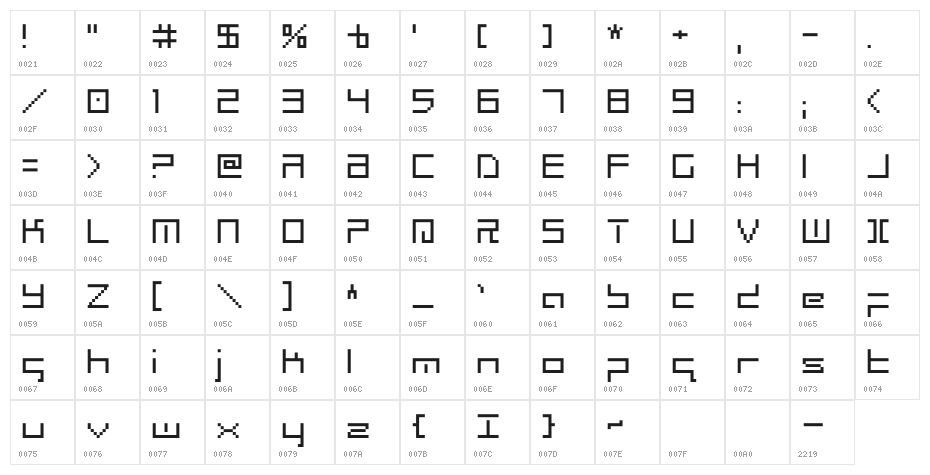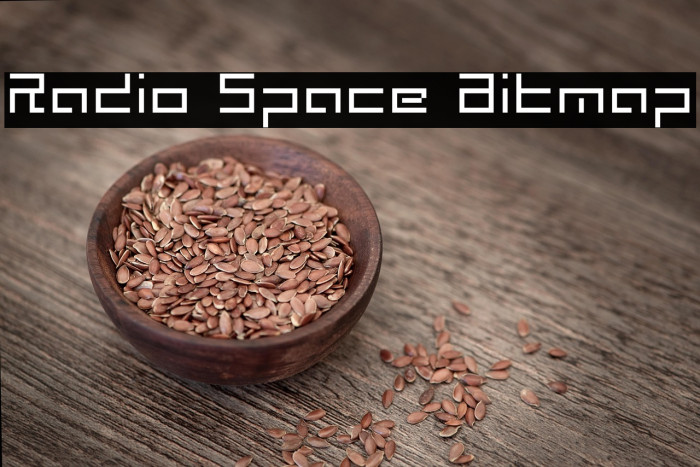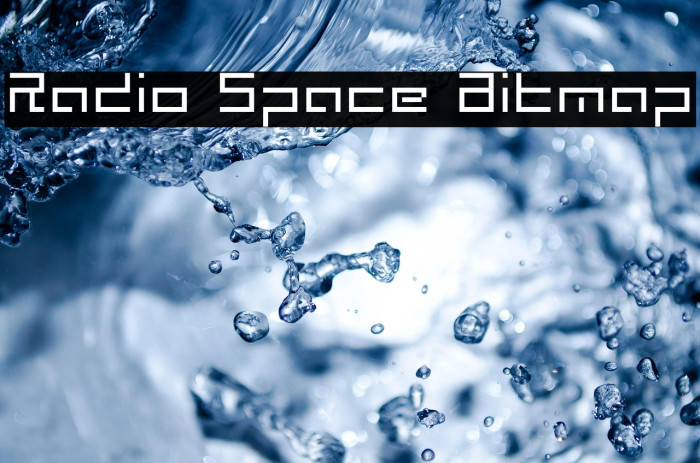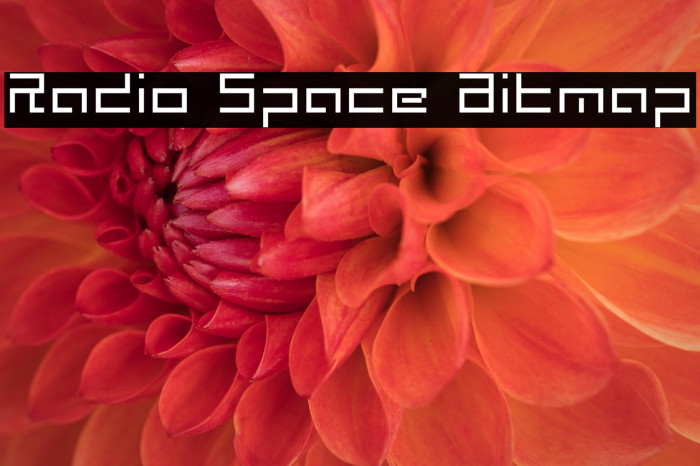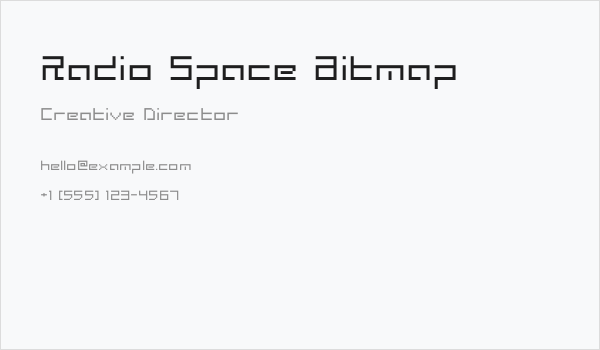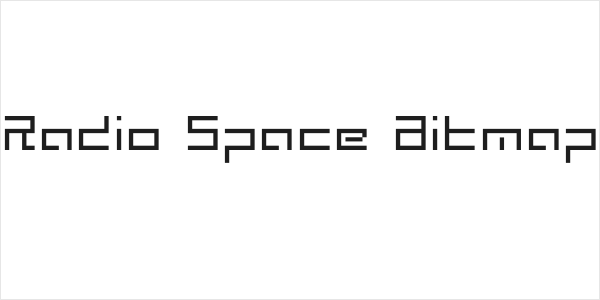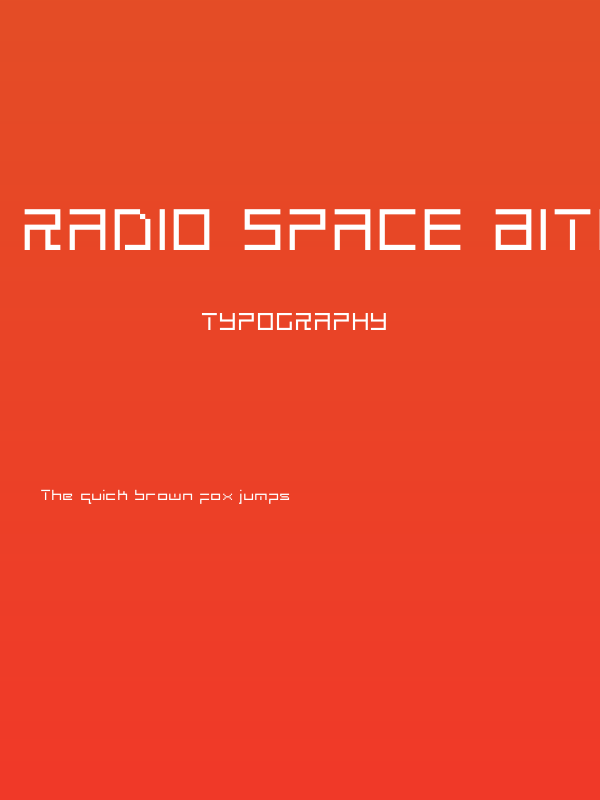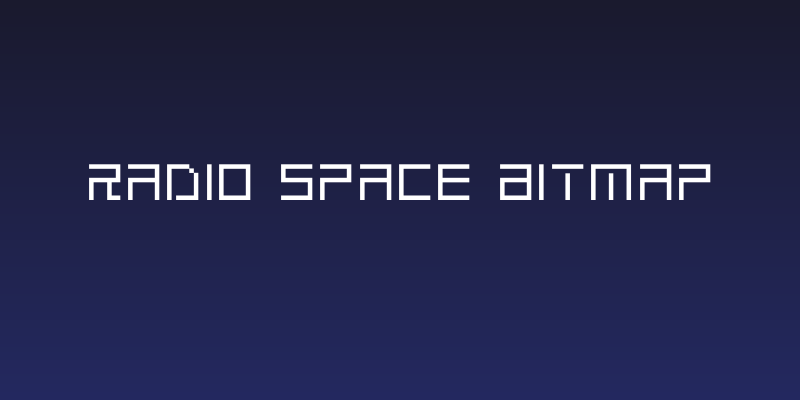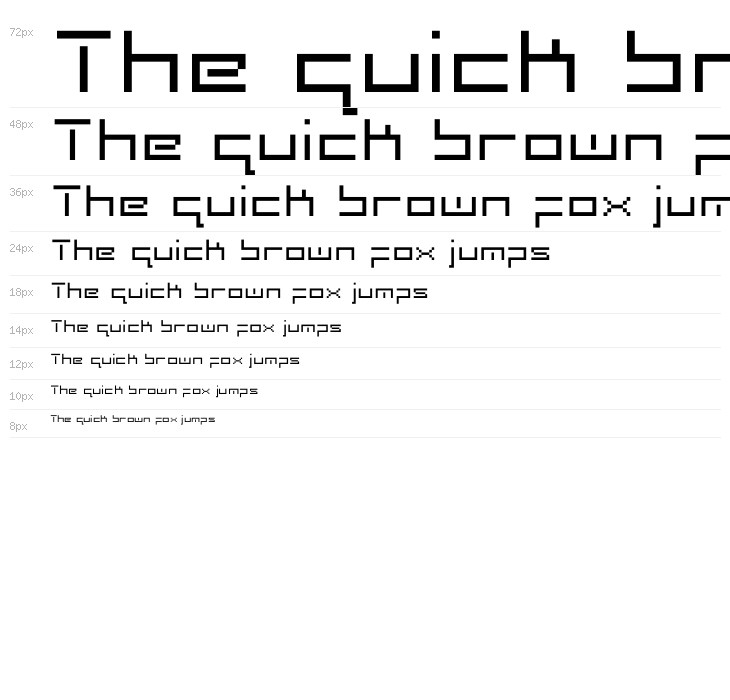
Radio Space Bitmap Font
Radio Space Bitmap Description
This font features a distinct pixelated design reminiscent of early digital displays and retro video games. Each character is constructed with a grid-like precision, giving it a blocky and geometric appearance. The uppercase and lowercase letters maintain a consistent height, contributing to a uniform look across the text. The numerals and special characters follow the same pixelated style, ensuring cohesion throughout. This font's nostalgic charm is ideal for projects that aim to evoke a sense of vintage technology or digital aesthetics.
| Overall Style | Vintage |
| Use Case | Logos, Headlines, Digital Art |
| Proposed Projects | Ideal for video game graphics, retro-themed posters, digital art, and tech-related branding. |